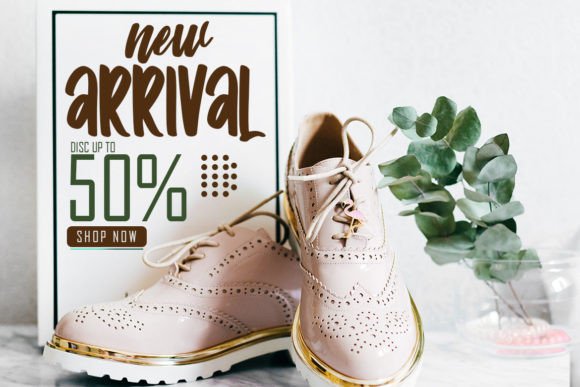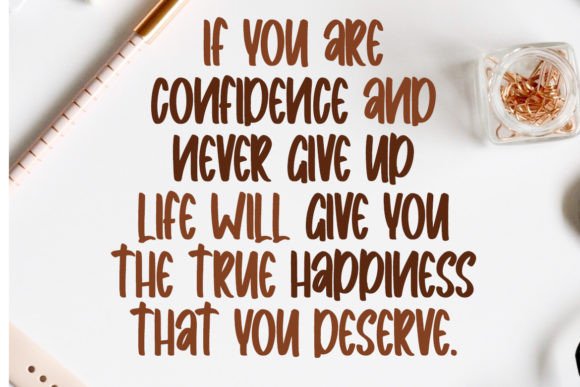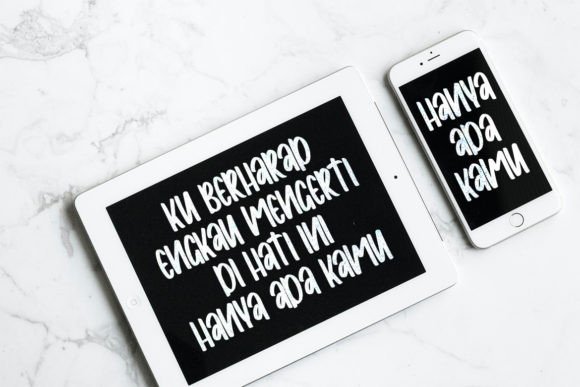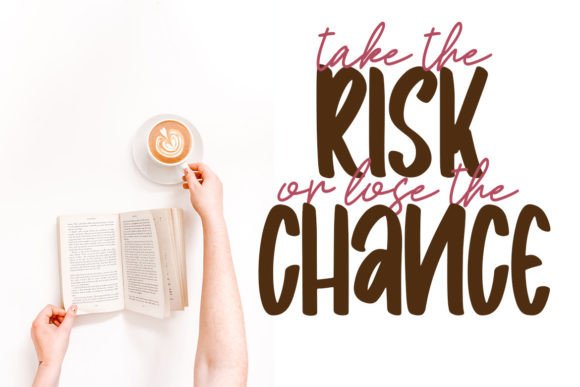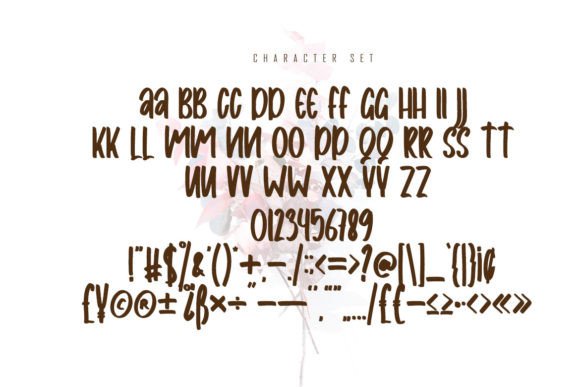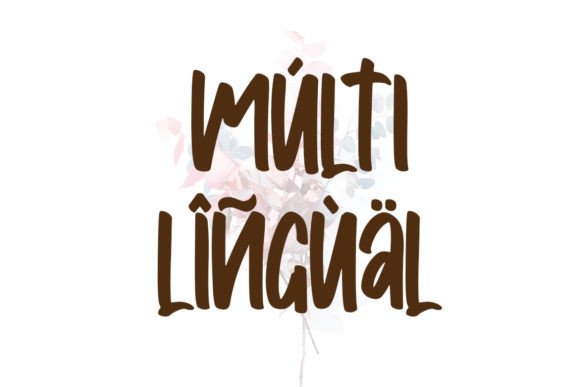
Introducing Dashaya Font: The Playful and Unique Handwritten Display Font
Are you tired of using the same old fonts for your designs? Do you want to add a personal touch to your projects? Look no further than Dashaya Font, a playful and unique handwritten display font that’s perfect for a variety of designs requiring a personalized style.
What is Dashaya Font?
Dashaya Font is a carefully crafted handwritten display font that’s designed to add a touch of personality to your designs. Its playful and unique style makes it perfect for use in a variety of projects, from branding and advertising to packaging and digital media.
Key Features of Dashaya Font
- Playful and Unique Style: Dashaya Font has a distinctive handwritten style that’s both playful and elegant.
- Handwritten Display Font: This font is specifically designed for use in display settings, making it perfect for headlines, titles, and other prominent text elements.
- Personalized Style: With Dashaya Font, you can add a personal touch to your designs and make them stand out from the crowd.
- Versatile: This font can be used in a variety of designs, from digital media to print materials.
Uses of Dashaya Font
Dashaya Font is a versatile font that can be used in a variety of designs, including:
- Branding and Advertising: Use Dashaya Font to create eye-catching logos, slogans, and ad copy that grabs attention.
- Packaging Design: Add a personal touch to your product packaging with Dashaya Font.
- Digital Media: Use Dashaya Font in your digital media projects, such as social media graphics, videos, and presentations.
- Crafting and Scrapbooking: Add a touch of personality to your crafting and scrapbooking projects with Dashaya Font.
Benefits of Using Dashaya Font
By using Dashaya Font, you can:
- Add Personality to Your Designs: With Dashaya Font, you can add a unique and playful touch to your designs.
- Stand Out from the Crowd: This font’s distinctive style will help your designs stand out from the crowd.
- Save Time: With Dashaya Font, you can quickly and easily create professional-looking designs without spending hours on typography.
Tips for Using Dashaya Font
Here are a few tips for using Dashaya Font effectively:
- Use it as a Display Font: Dashaya Font is specifically designed for use in display settings, so use it to create eye-catching headlines and titles.
- Experiment with Colors and Textures: Add an extra layer of personality to your designs by experimenting with different colors and textures.
- Pair it with Other Fonts: Try pairing Dashaya Font with other fonts to create a unique and visually appealing typography combination.
Dashaya Font is a playful and unique handwritten display font that’s perfect for designers and crafters looking to add a personal touch to their projects. With its versatile style and wide range of uses, Dashaya Font is a great addition to any design toolkit. So why wait? Download Dashaya Font today and start creating designs that stand out from the crowd!